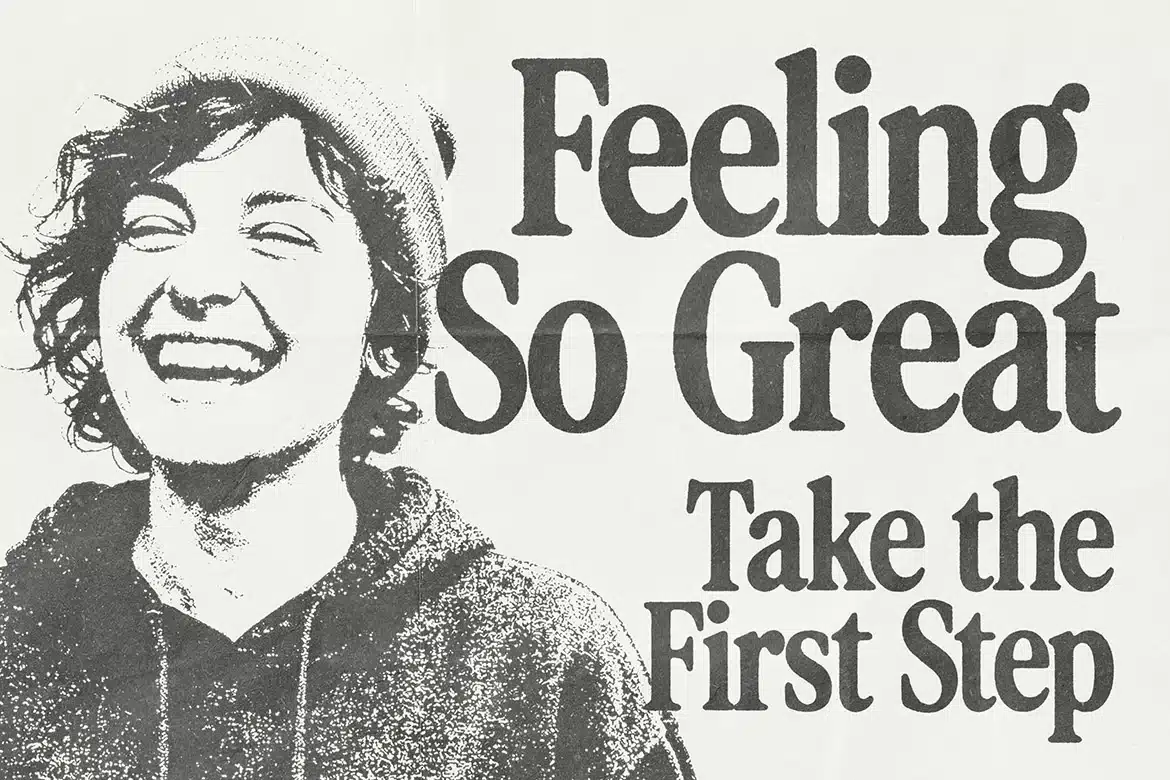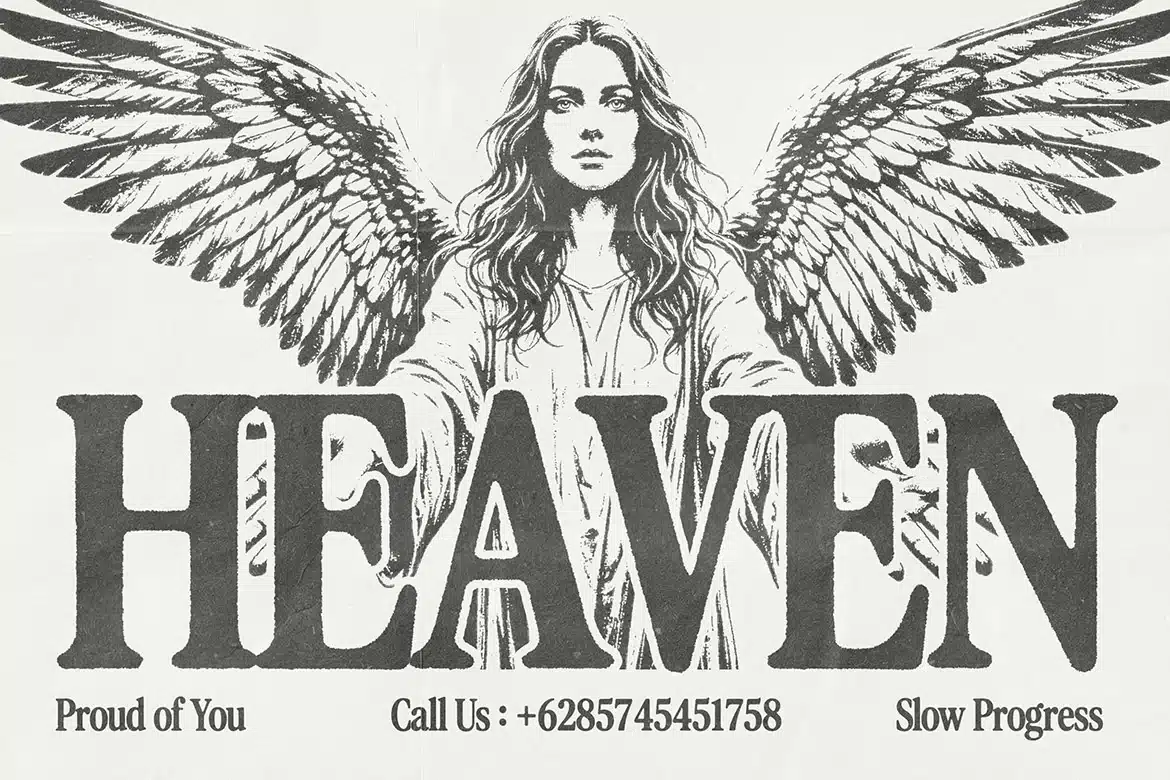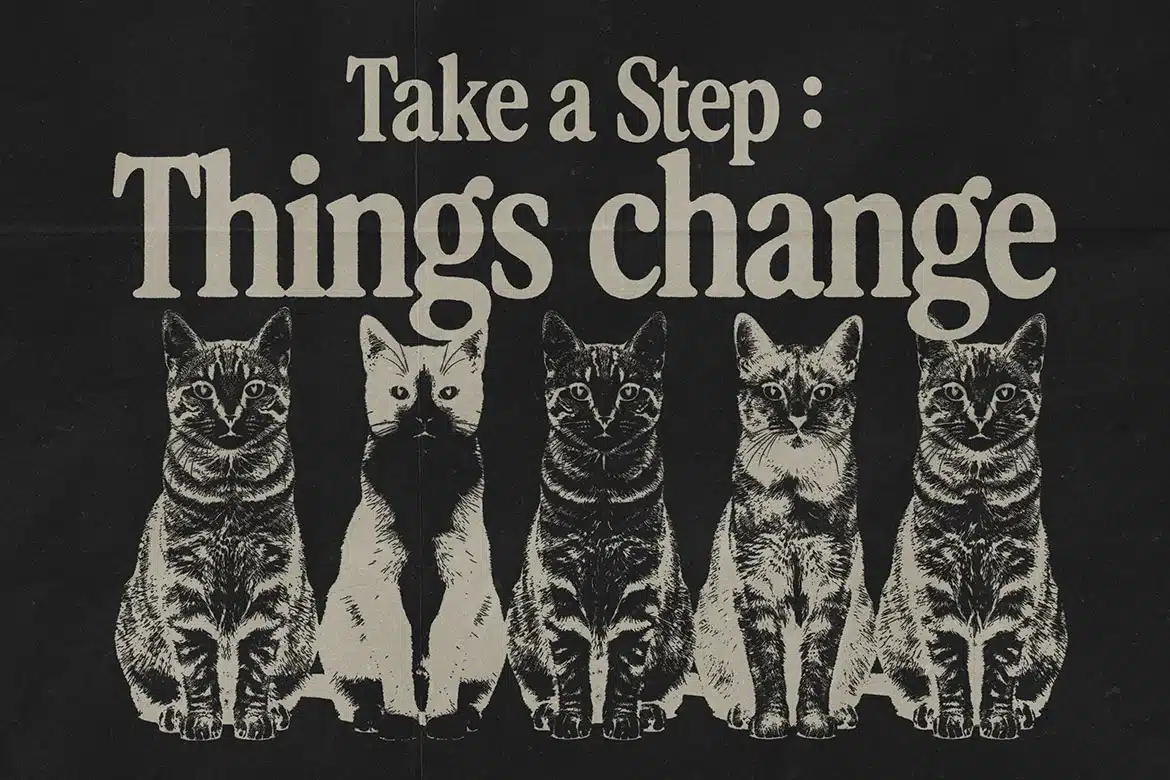
Worldstar – Distressed Serif Font
Worldstar is a bold distressed serif font that combines timeless vintage elegance with a raw, rugged texture. Designed with carefully crafted rough edges and imperfect details, this typeface captures the authentic feel of aged print, giving your designs a natural worn, grunge, and retro aesthetic.
Perfect for creatives who want to add character and depth, Worldstar works beautifully for branding, logo design, editorial layouts, posters, packaging, book covers, and vintage-inspired projects. Its strong serif structure keeps it readable while the distressed texture adds a unique handcrafted touch that stands out in both digital and print designs.
Whether you're creating retro branding, rustic logos, grunge posters, or classic editorial typography, Worldstar delivers a bold visual impact with a nostalgic feel.